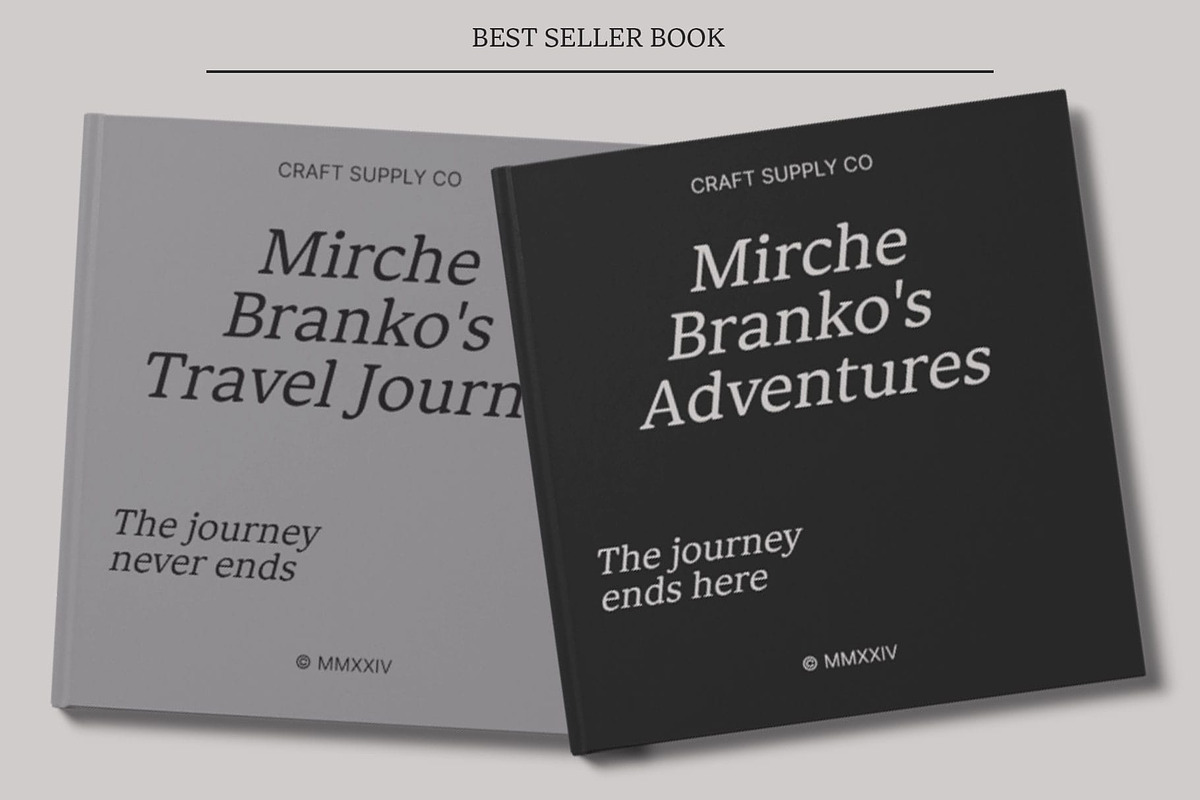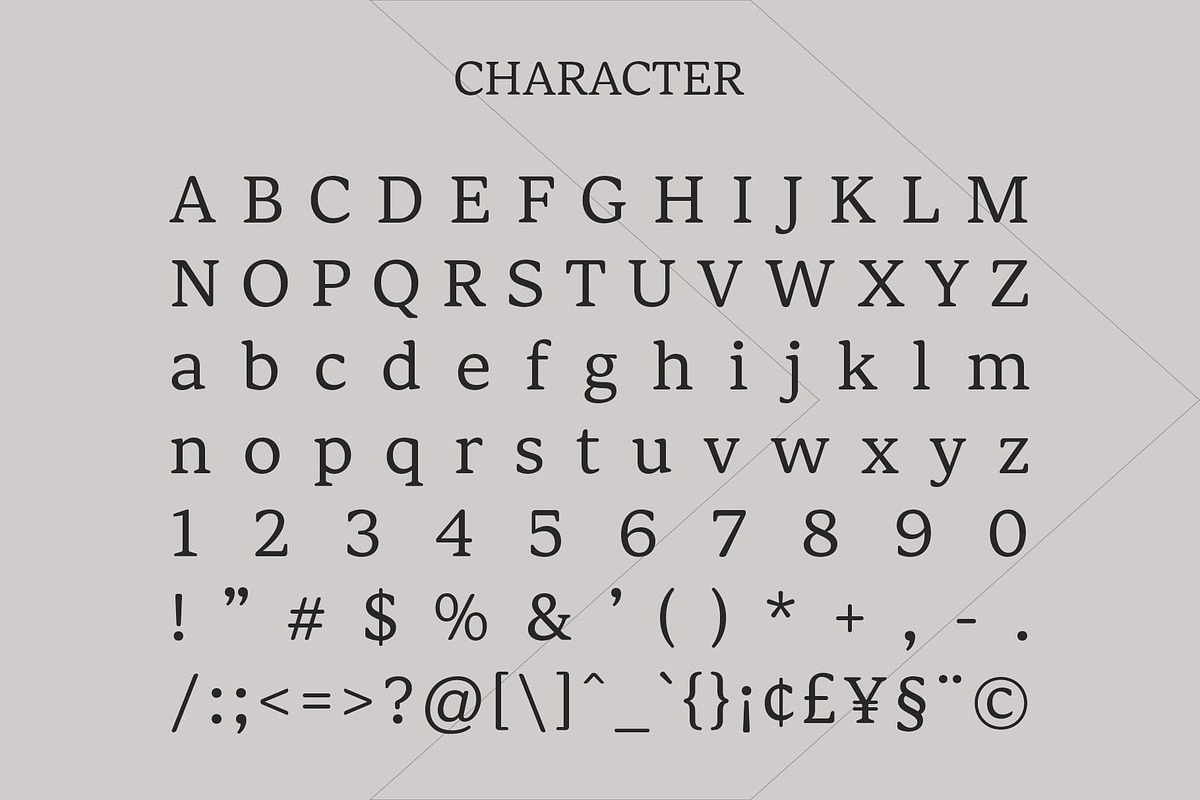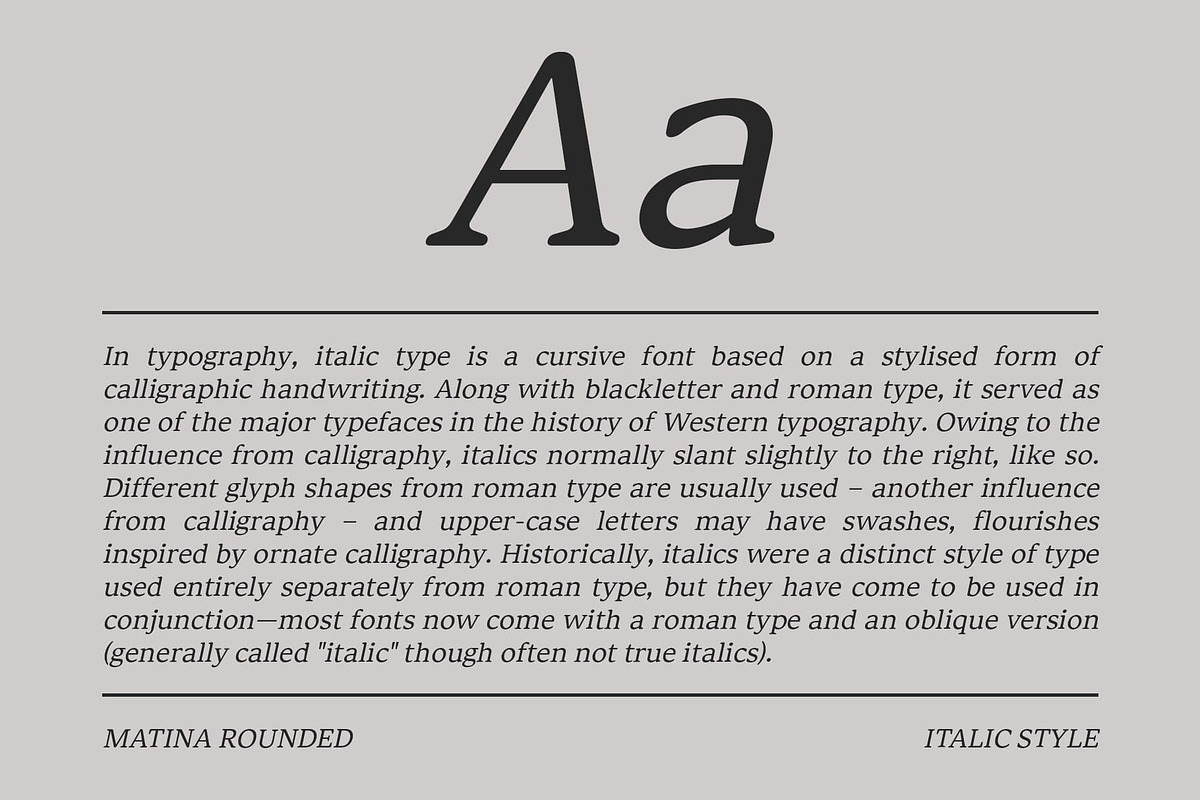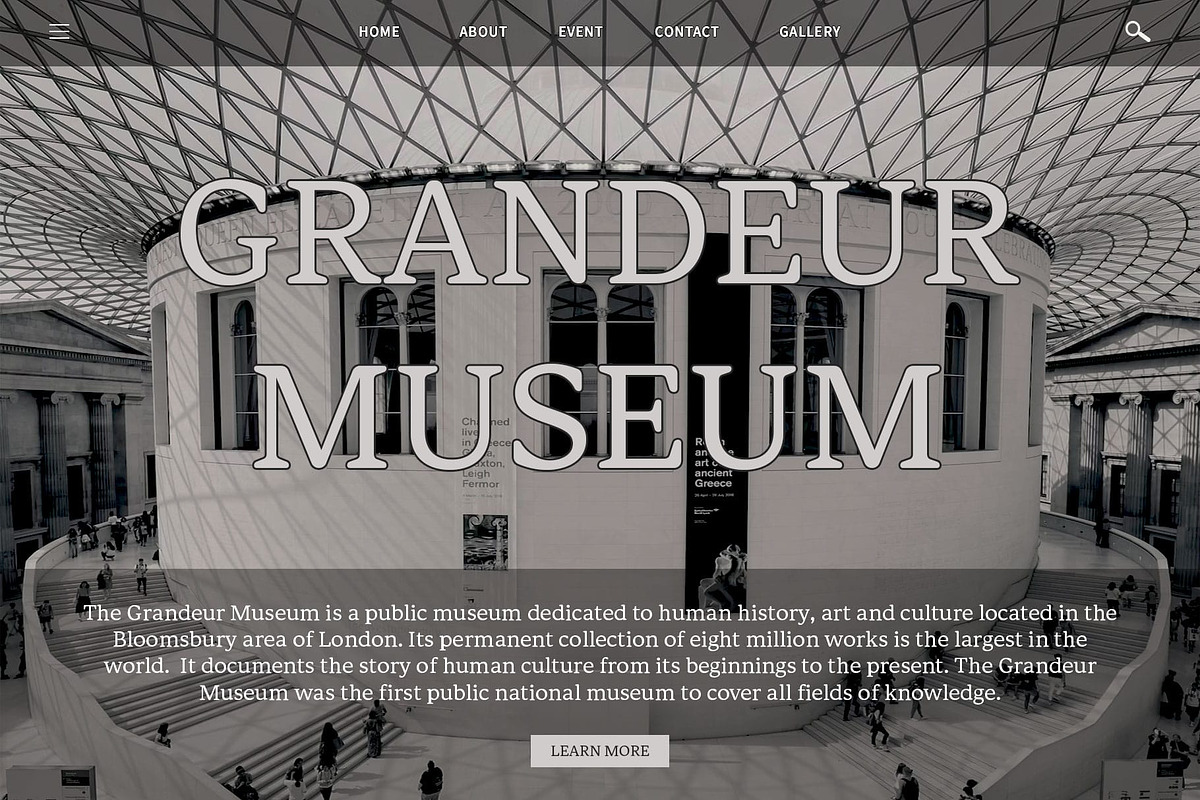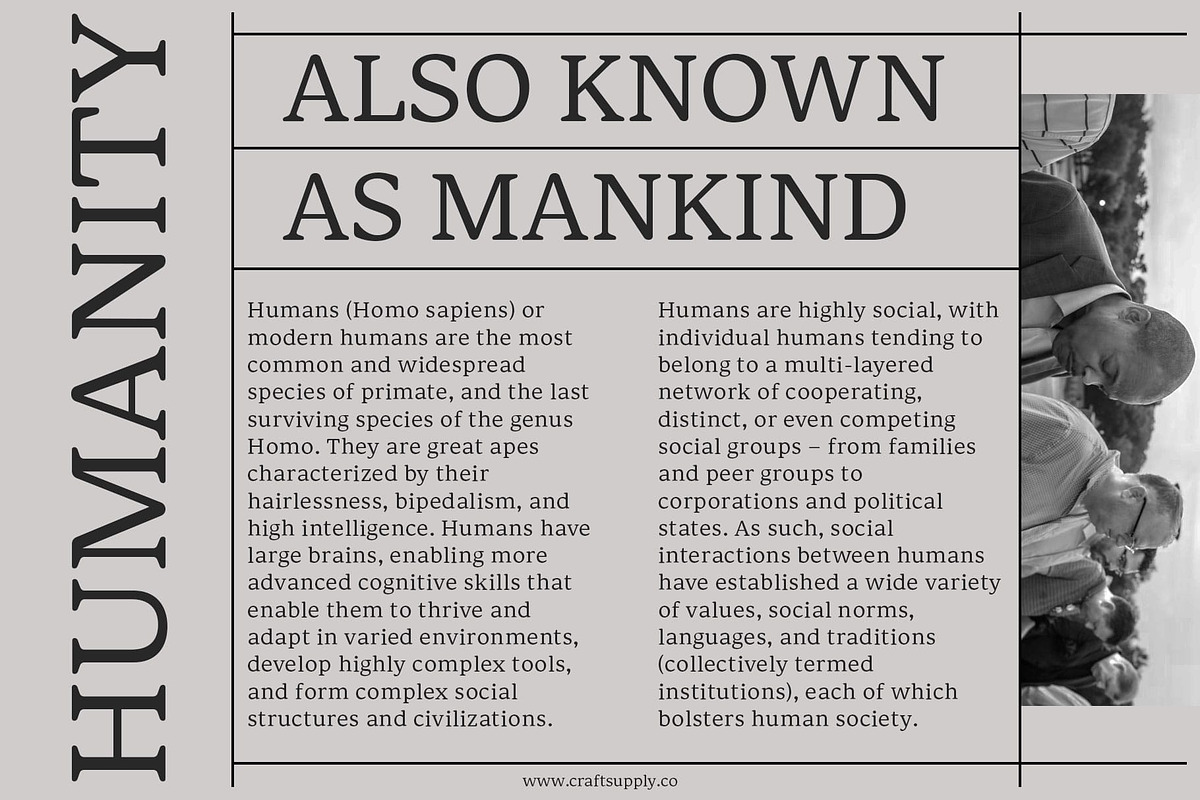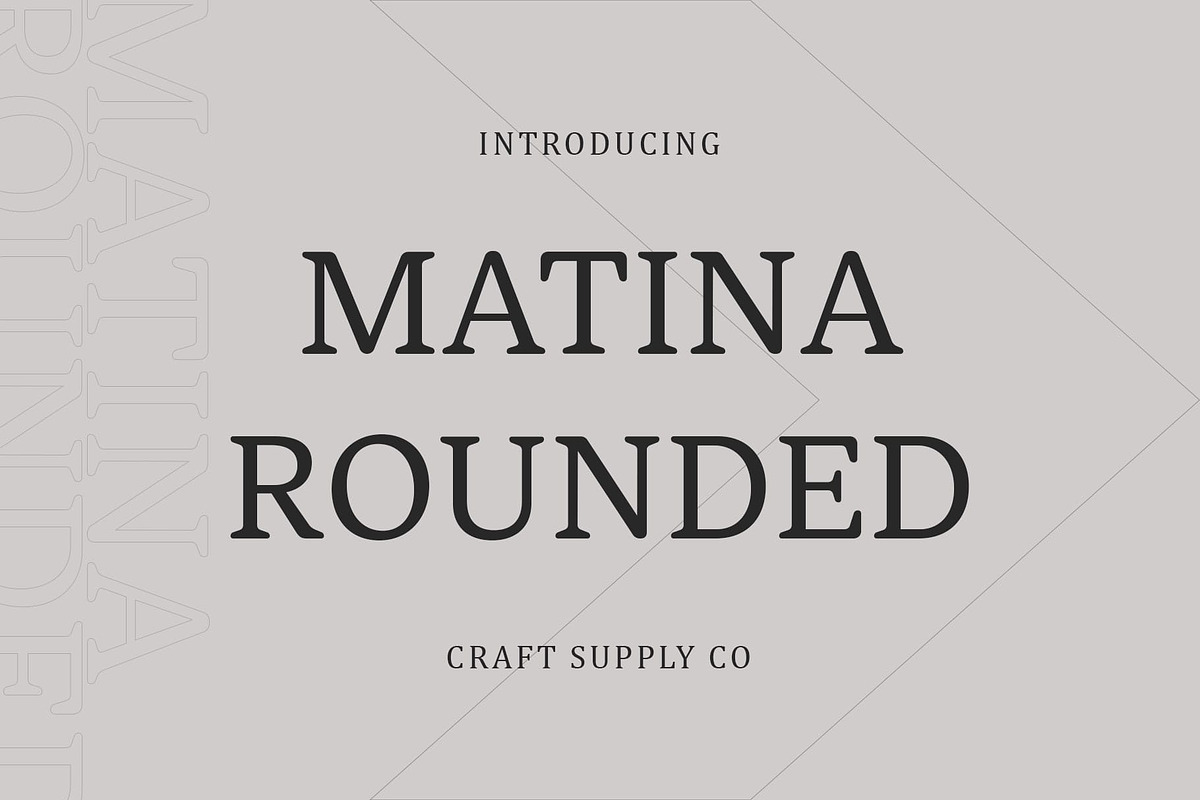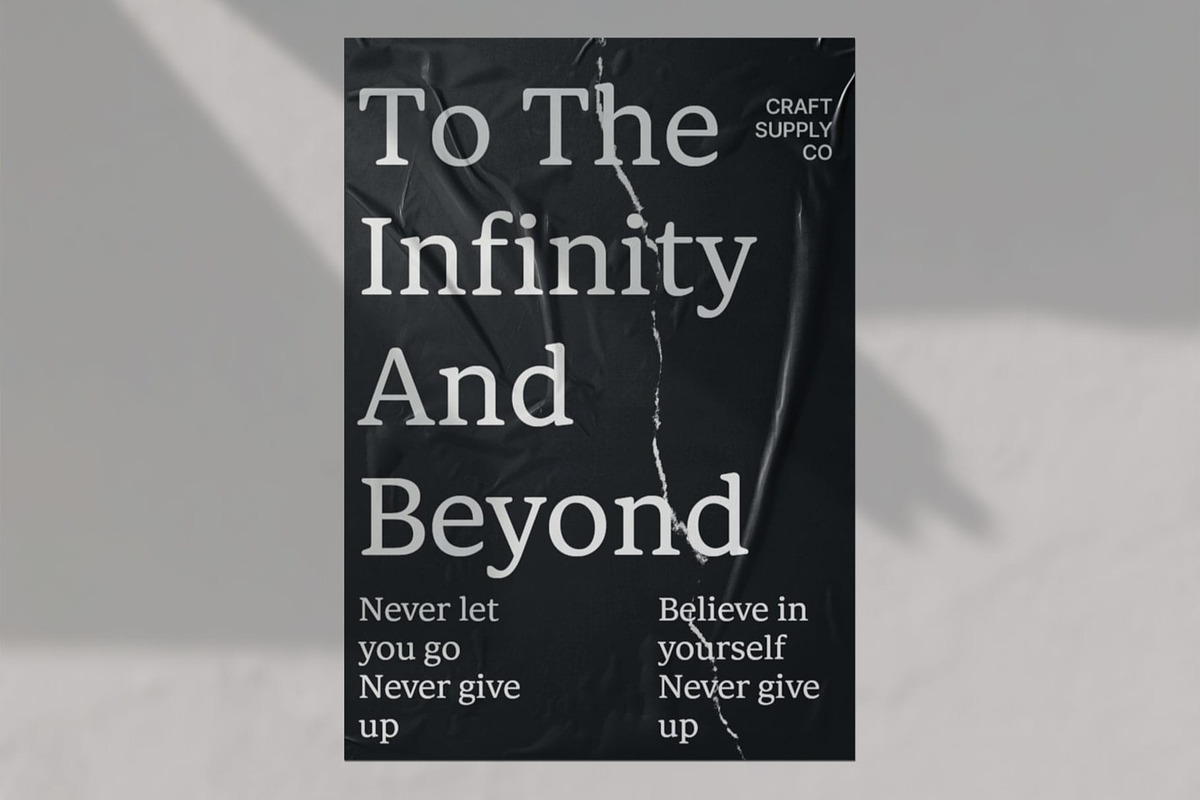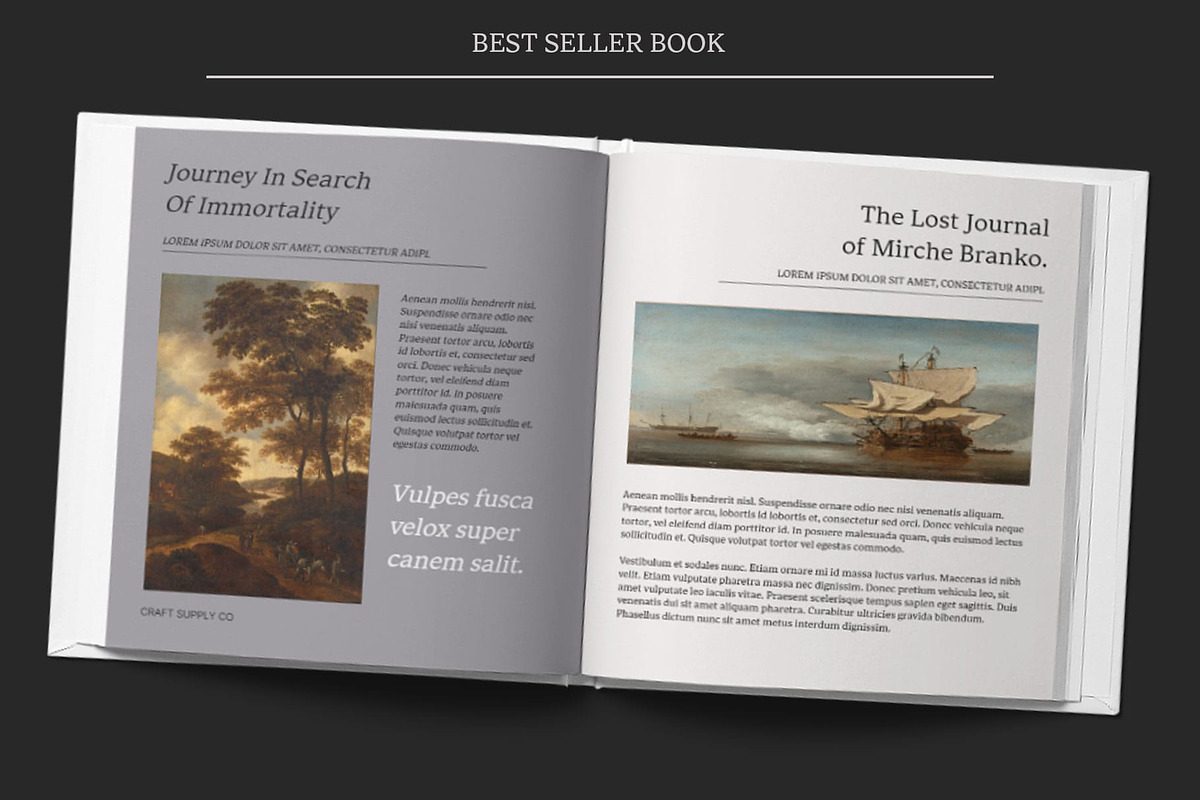
Matina Rounded
Matina Rounded: Ideal for Body Text
Gentle Contrast for Readability Matina Rounded presents a serif font style with subtle contrast, ensuring comfortable reading experiences for body text. Its gentle contrast allows for smooth flow and enhanced legibility.
Soft Serif Aesthetics With soft, rounded serifs, This font exudes warmth and approachability. The gentle curves of its letterforms create a friendly and inviting appearance, making it suitable for prolonged reading sessions.
Tailored for Body Text Crafted specifically for body text, This font excels in conveying information effectively. Its low-contrast design reduces eye strain and fatigue, enhancing readability across various content formats.
Versatile Application Beyond its primary use in body text, This font proves versatile in a range of design applications. From digital interfaces to print publications, its understated elegance adds a touch of sophistication to any project.
Body Text Font This font emerges as the perfect choice for body text, thanks to its gentle contrast and soft serif aesthetics. Versatile and user-friendly, it ensures clear communication and comfortable reading experiences across diverse platforms and media.